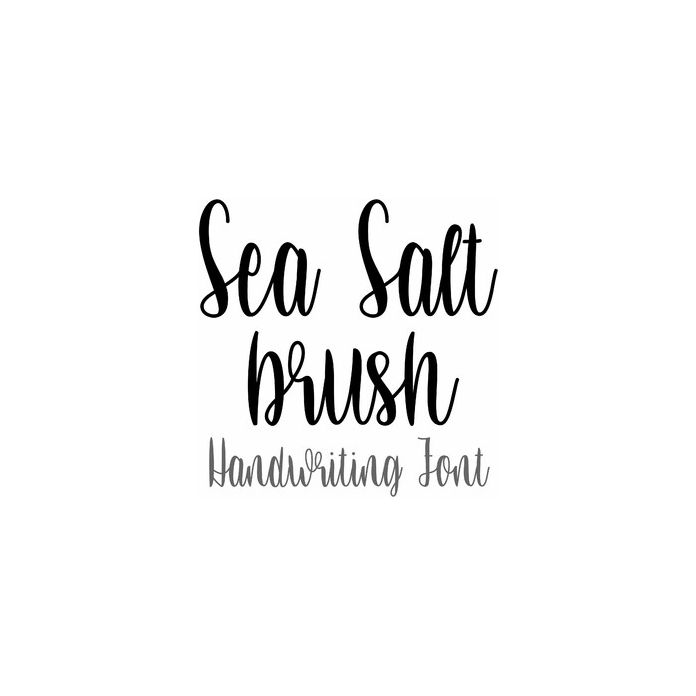
sea salt brush handwriting font
Sea Salt Brush Handwriting is a farmhouse style brush marker font, fun for cards, crafts, and projects. Includes alphabet, numbers, and punctuation.